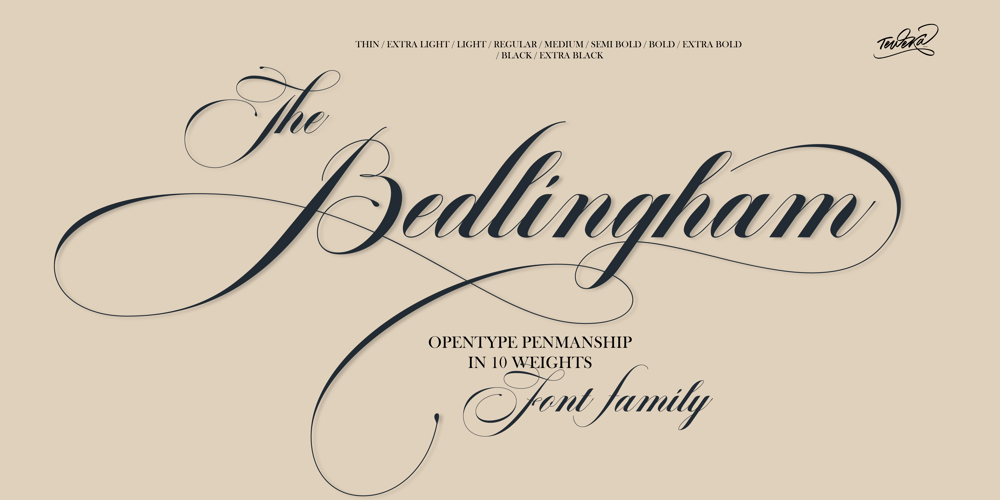
Bedlingham
Bedlingham font
Bedlingham Font Family was designed by Tuanku Muhammad Iqbal and published by Teweka. Bedlingham contains 10 styles and family package options. Bedlingham is a font that has 10 thickness variations, this font has a very elegant classic style. Bedlingham also has a lot of ligatures, Stylistic Sets in each character. This font has an opentype feature which is equipped with contextual alternates which are replaced automatically and you can also access the Stylistic Set very easily, just by writing a combination of letters and numbers.